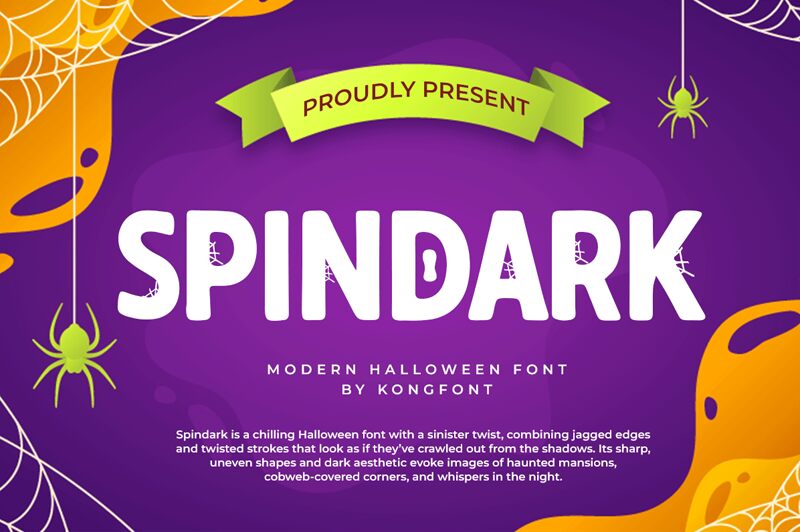
Spindark font designed by Kong Font is an intriguing free font that combines unsettling and dark features with an unusual unsettling visual. The font maintains a jagged design making it perfect for usage in horror movie posters or website titles. Use it within your logo designs for a thematic style in its essence.
Projects relating to holidays such as Halloween are a perfect match for Spindark, which can be used in many ways as a title, subtitle, or body text. Use it with your book cover designs, video games, social media posts, and similar as well.